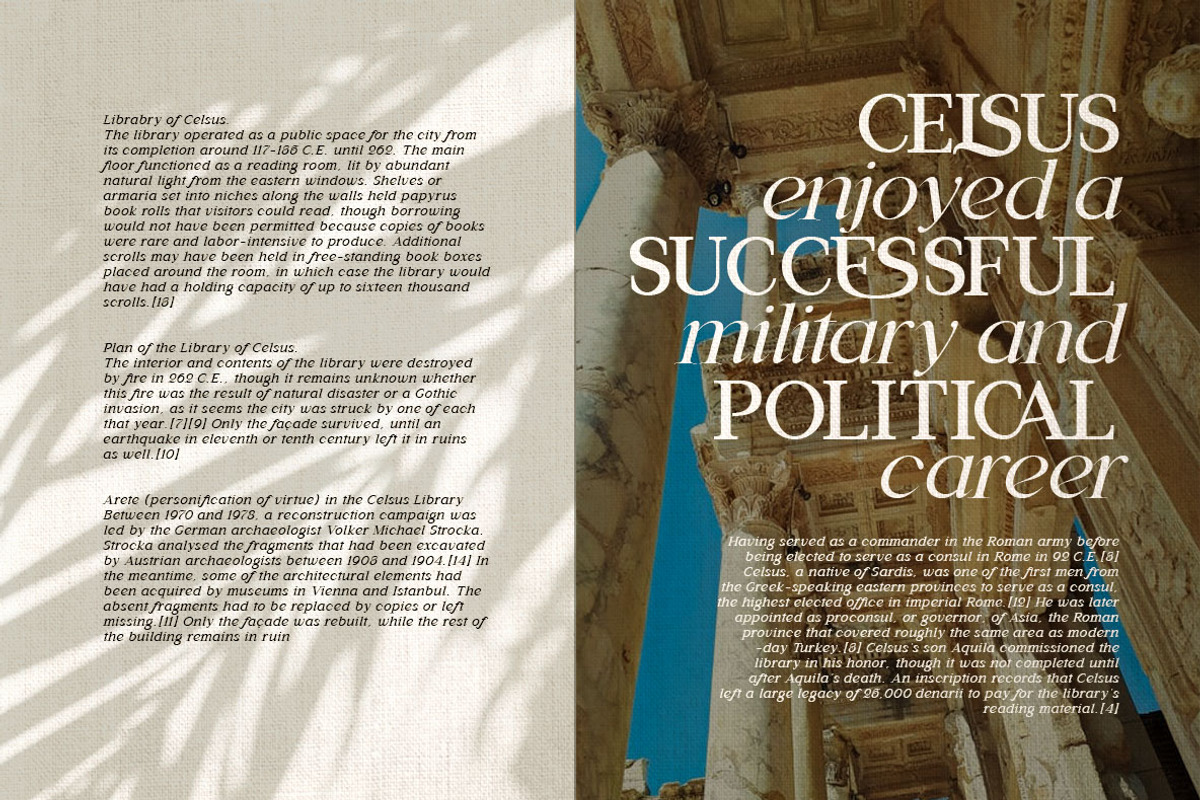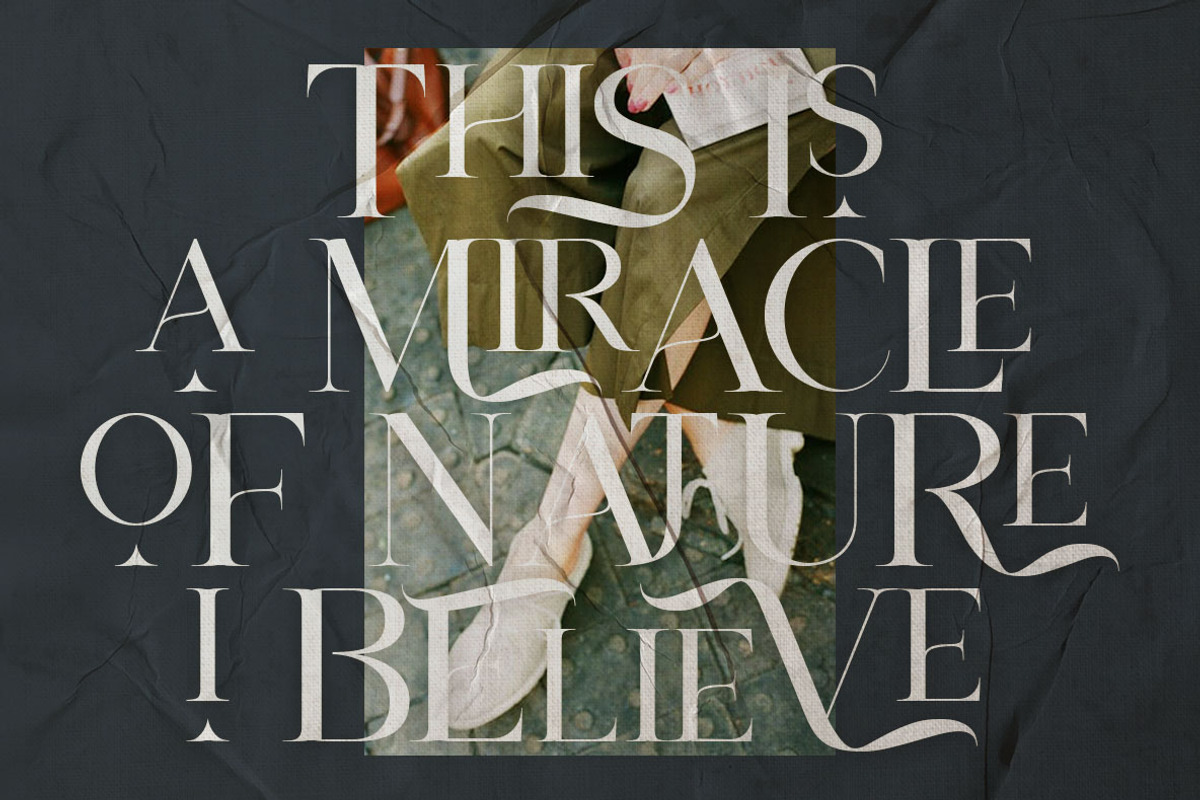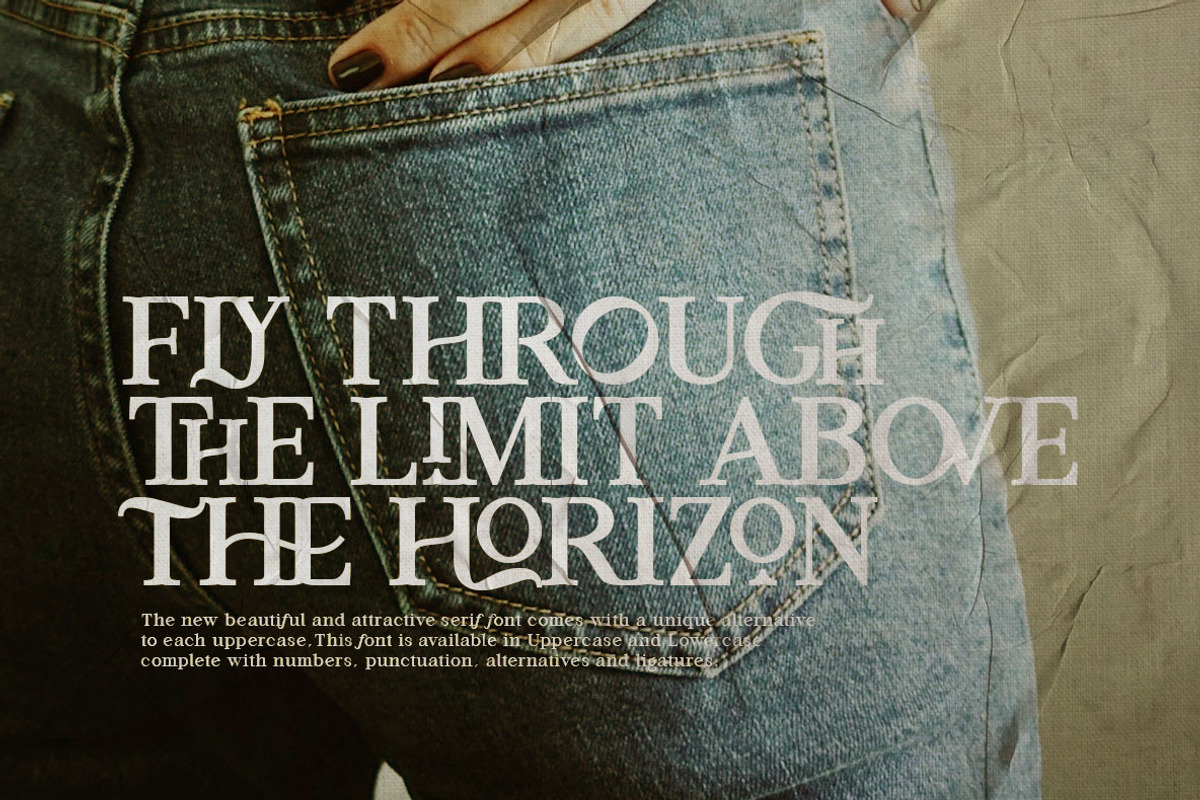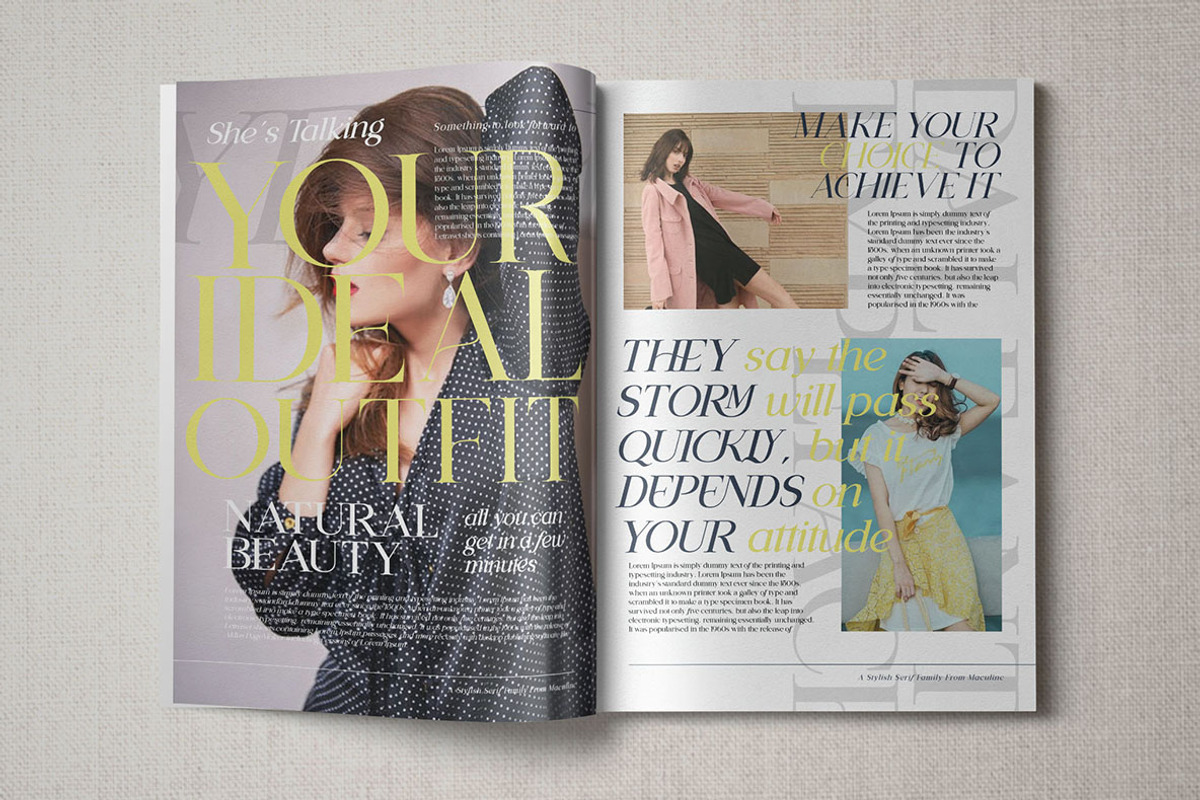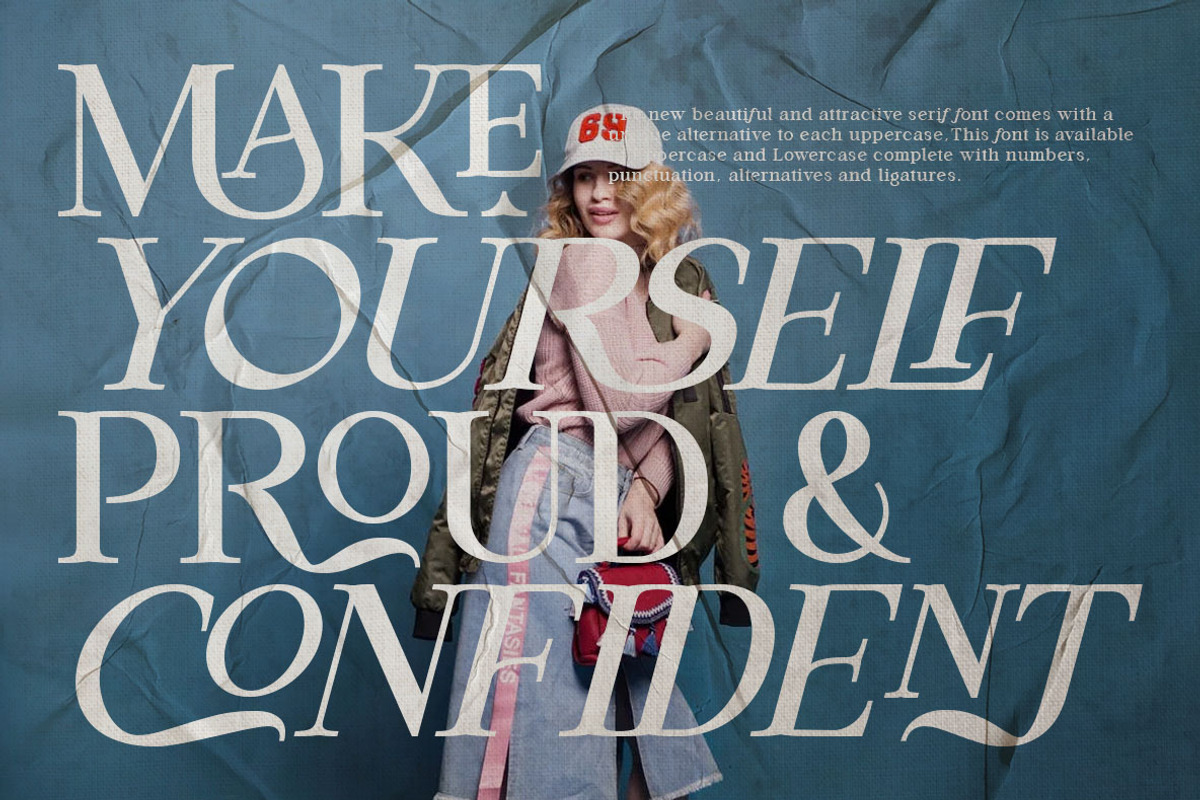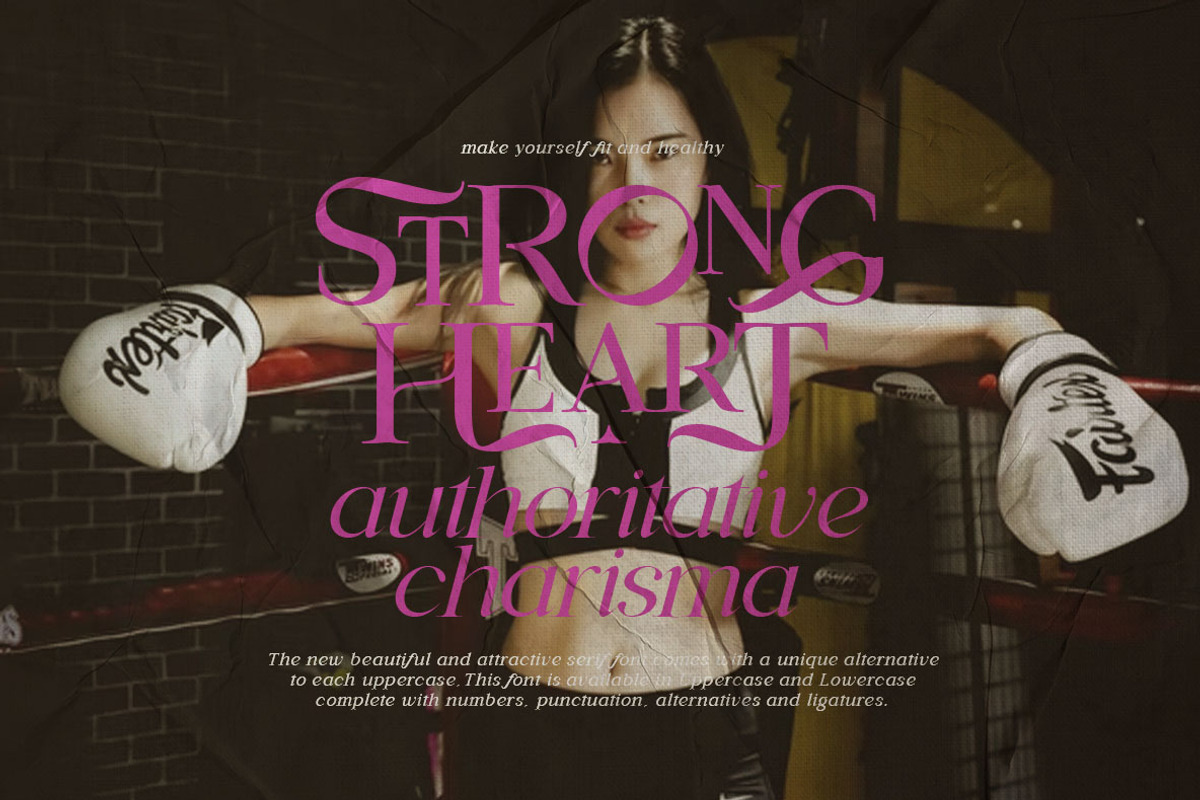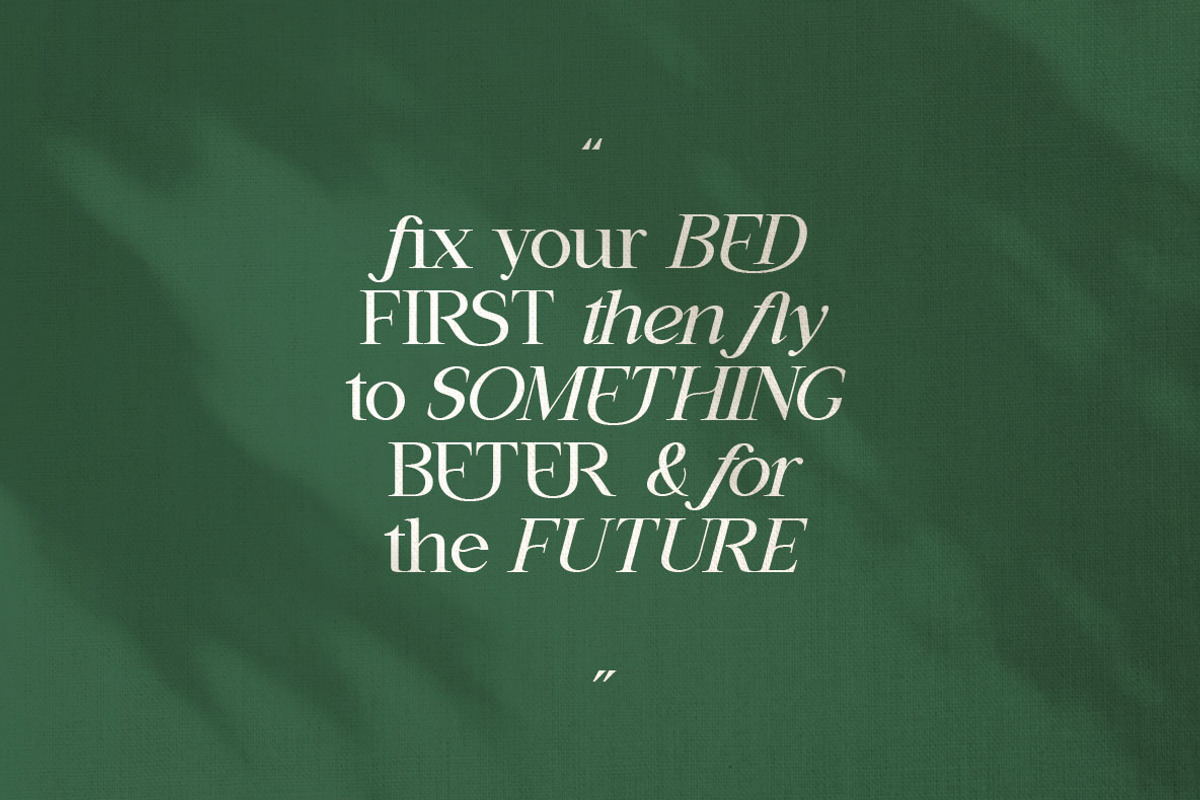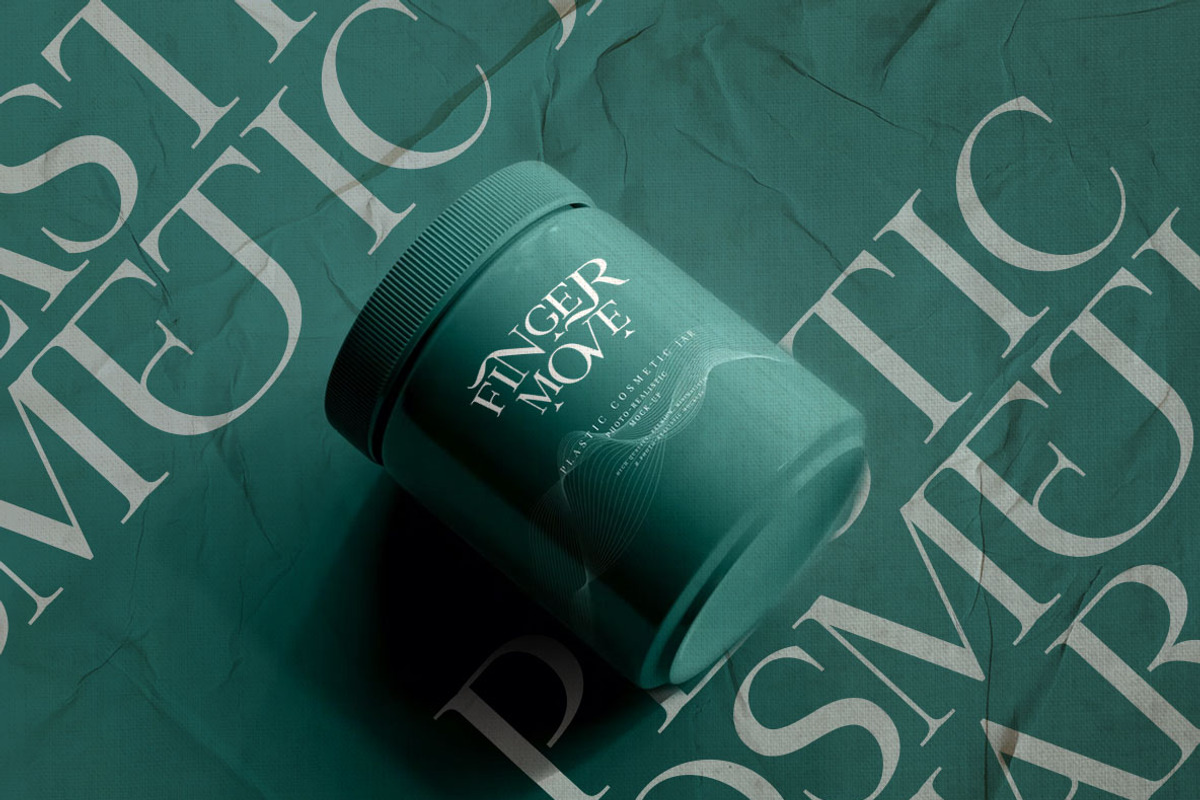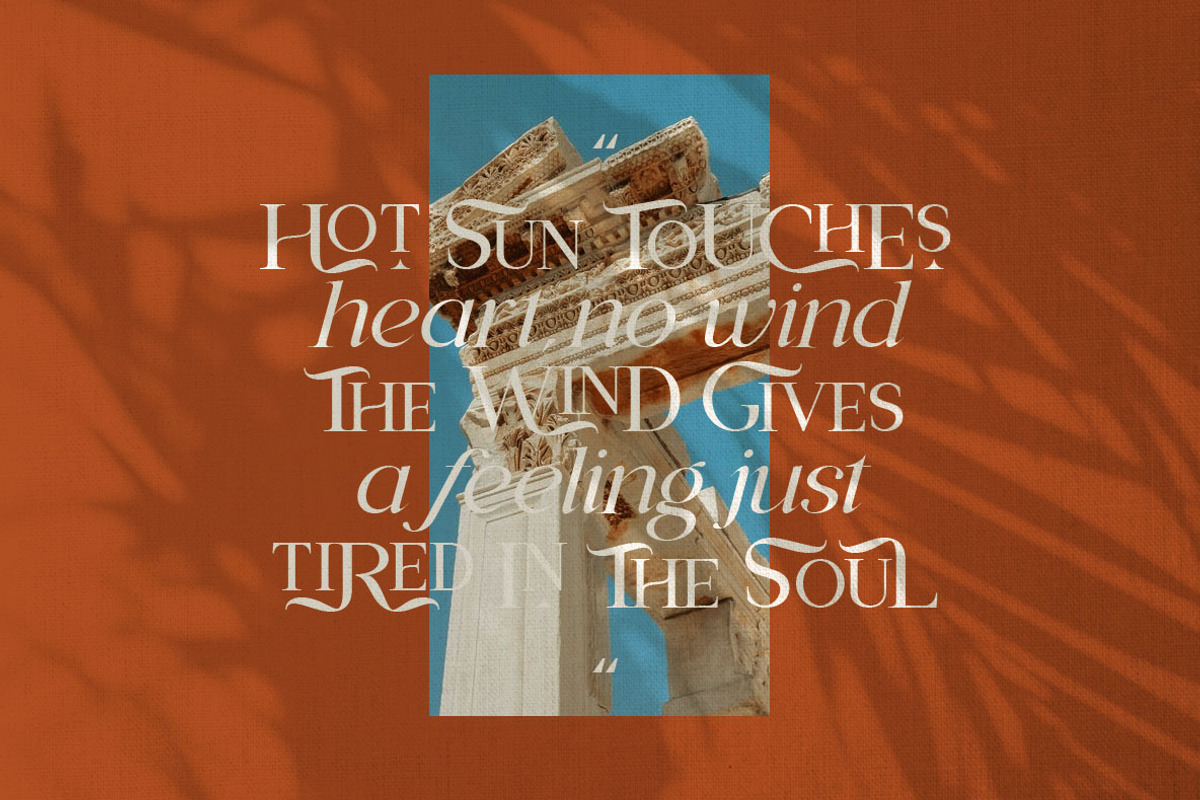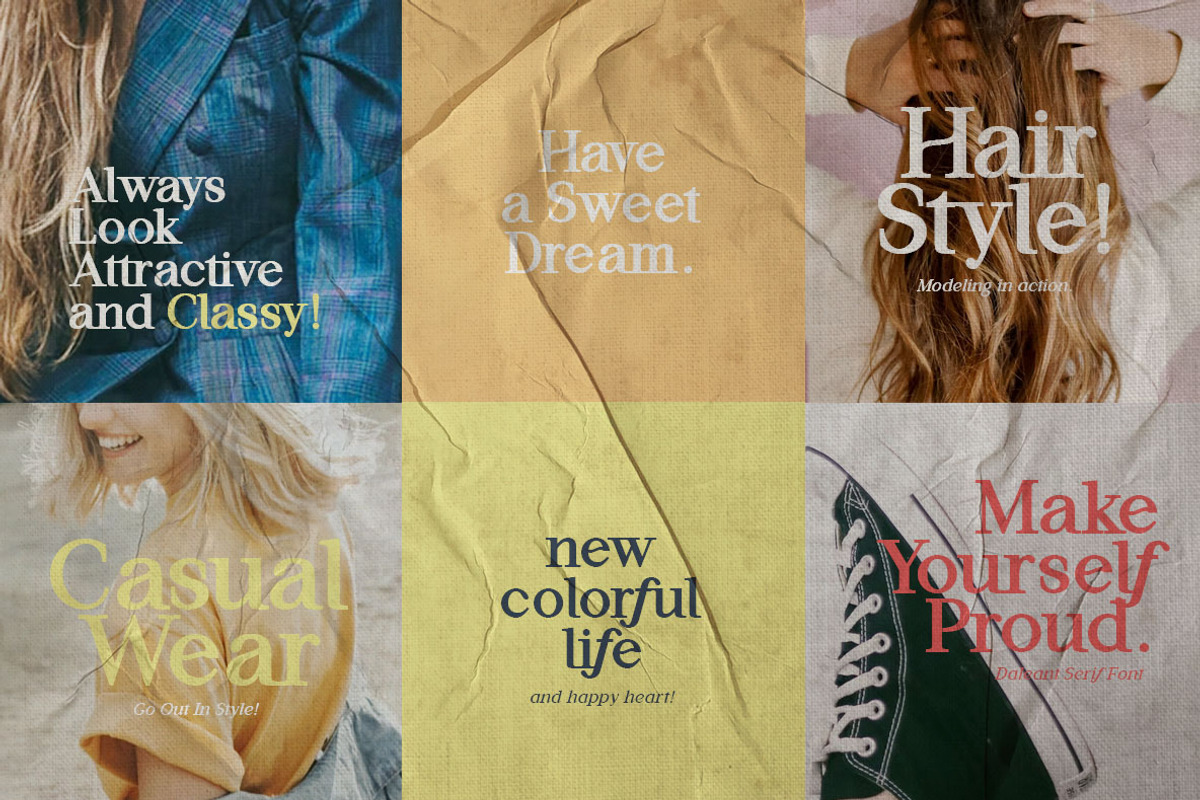
Daleant - Serif Font (10 Fonts)
The new beautiful and attractive Serif Font comes with a unique alternative in each Uppercase, This Font is available in Uppercase and Lowercase Complete with Numbers, Punctuation, Alternate and Ligatures.
Daleant Serif Font is available in the family of Light, Light-Italic, Regular, Italic, Medium, Medium-Italic, Semi Bold, Semi Bold-Italic, Bold, Bold-Italic.
Alternatives and Ligatures in this font are only available in uppercase letters, Add alternatives to make sentences more unique and interesting.